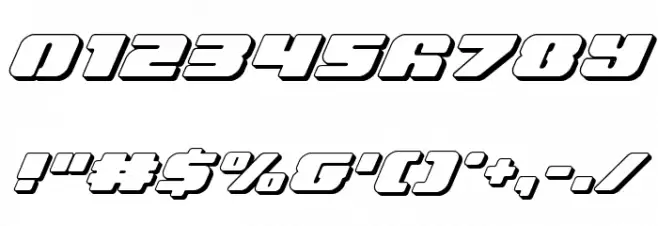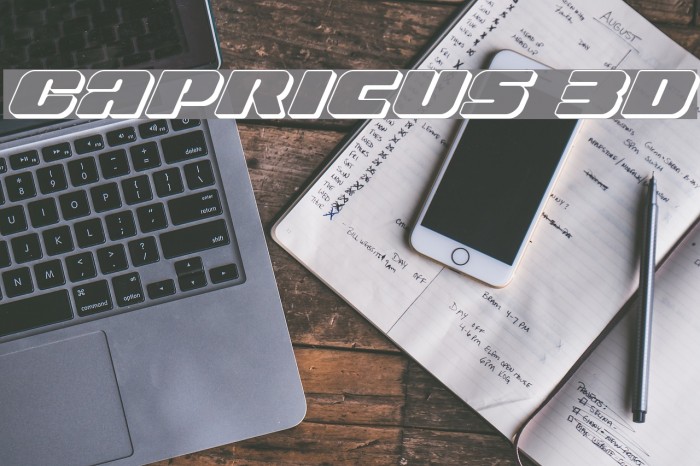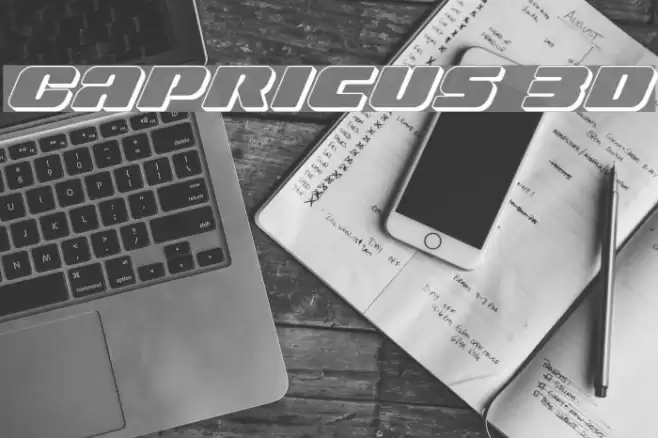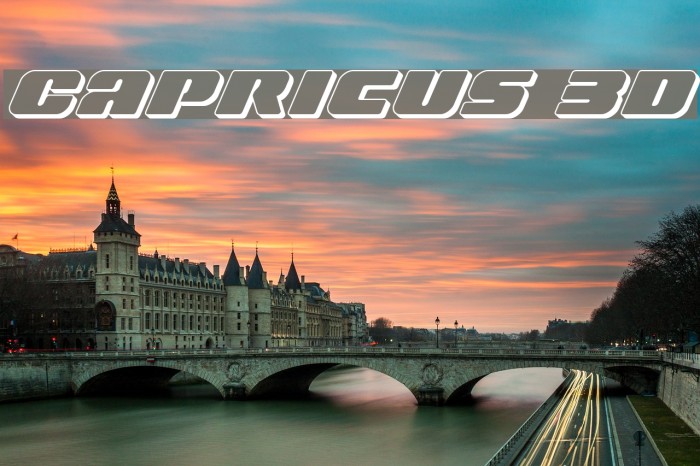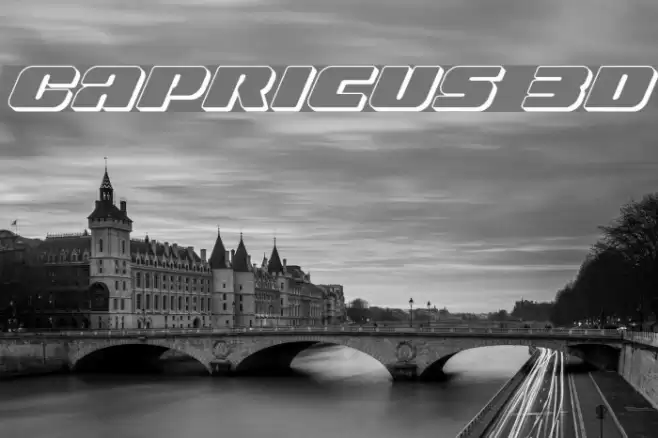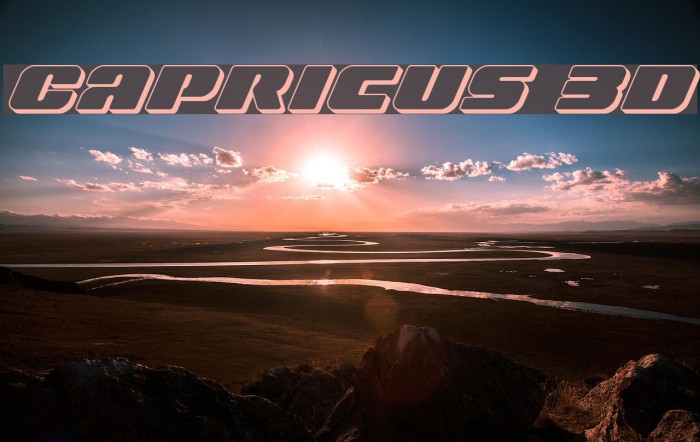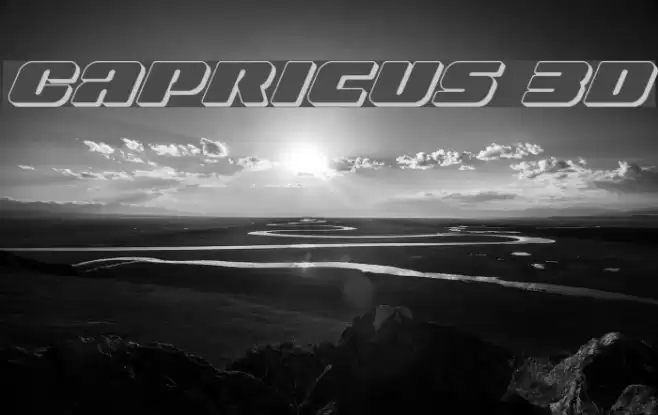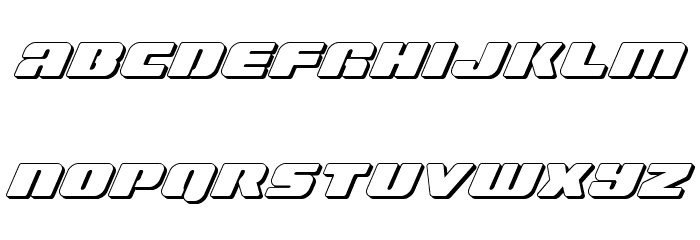
Capricus 3D Font
Capricus 3D Description
This font features a bold, three-dimensional style with a strong, impactful presence. The characters are designed with a thick outline and a shadow effect that gives them a 3D appearance. The letters are uniformly wide, with a blocky, geometric structure that conveys a sense of modernity and strength. The uppercase and lowercase letters maintain a consistent style, while the numbers and special characters complement the overall design. This font is ideal for projects that require a futuristic or tech-inspired aesthetic.
| Proposed Projects | Ideal for video game titles, tech branding, futuristic posters, and digital media. |